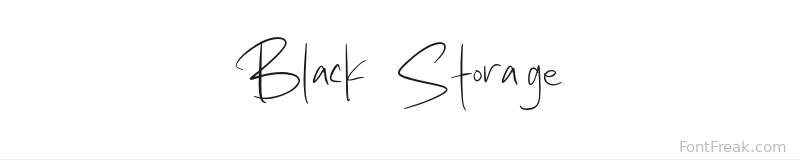
Black Storage
About Black Storage
Introducing the Black Storage font by MJType, a captivating display typeface that combines modern flair with a touch of elegance. This freeware font is perfect for those seeking a unique typographic solution in their design projects. Characterized as a decorative font, Black Storage features a playful yet sophisticated style, making it an excellent choice for a variety of applications.
Visually, the Black Storage font boasts a dynamic stroke weight that balances between bold and light, creating an eye-catching contrast. The fluid, cursive-like forms are complemented by spacious letter spacing, ensuring readability while maintaining an artistic appeal. The font’s whimsical curves and gentle loops add a decorative touch, making it suitable for creative endeavors that demand a personalized aesthetic.
Black Storage is particularly well-suited for wedding invitations, where its charming style can enhance the elegance of the occasion. Additionally, it works beautifully for movie posters, allowing designers to craft visually striking titles that capture the audience's attention. Restaurant menus can benefit from this font as well, as it adds a unique character that reflects the establishment's ambiance. Content creators and graphic designers will find it invaluable for branding purposes, creating logos and promotional materials that stand out in a crowded marketplace.